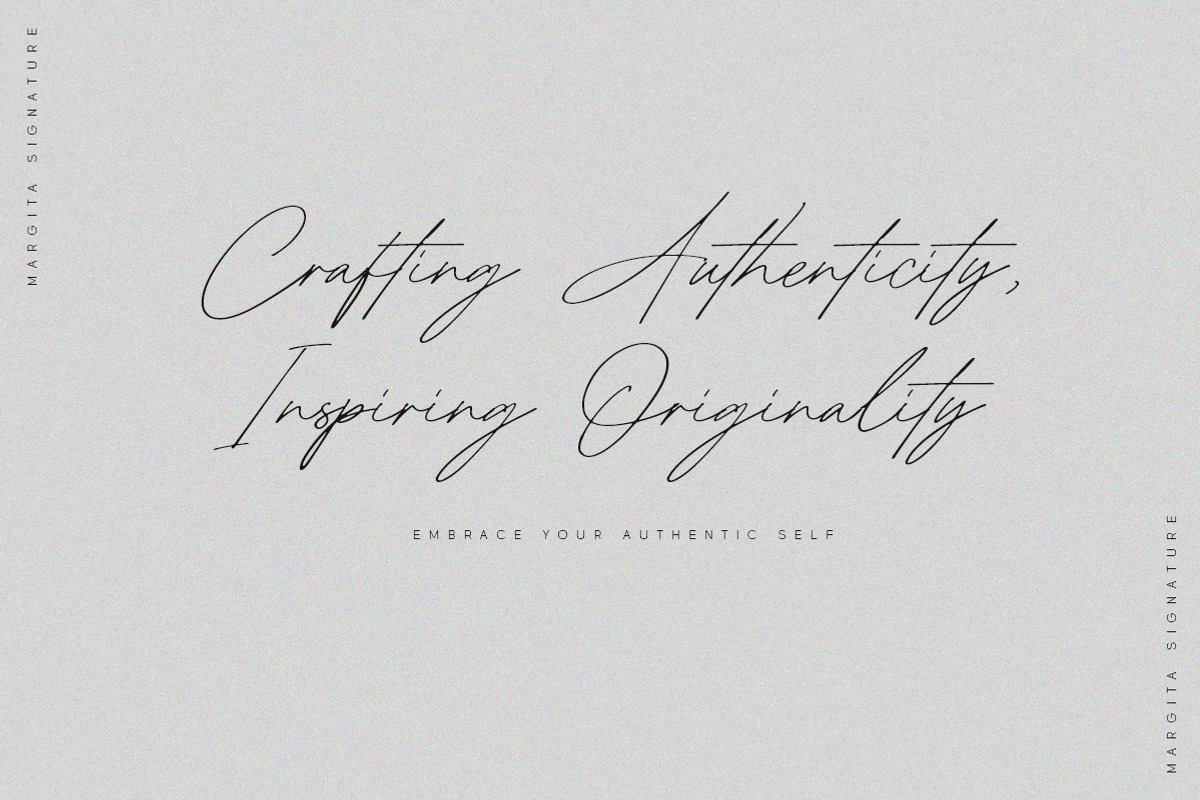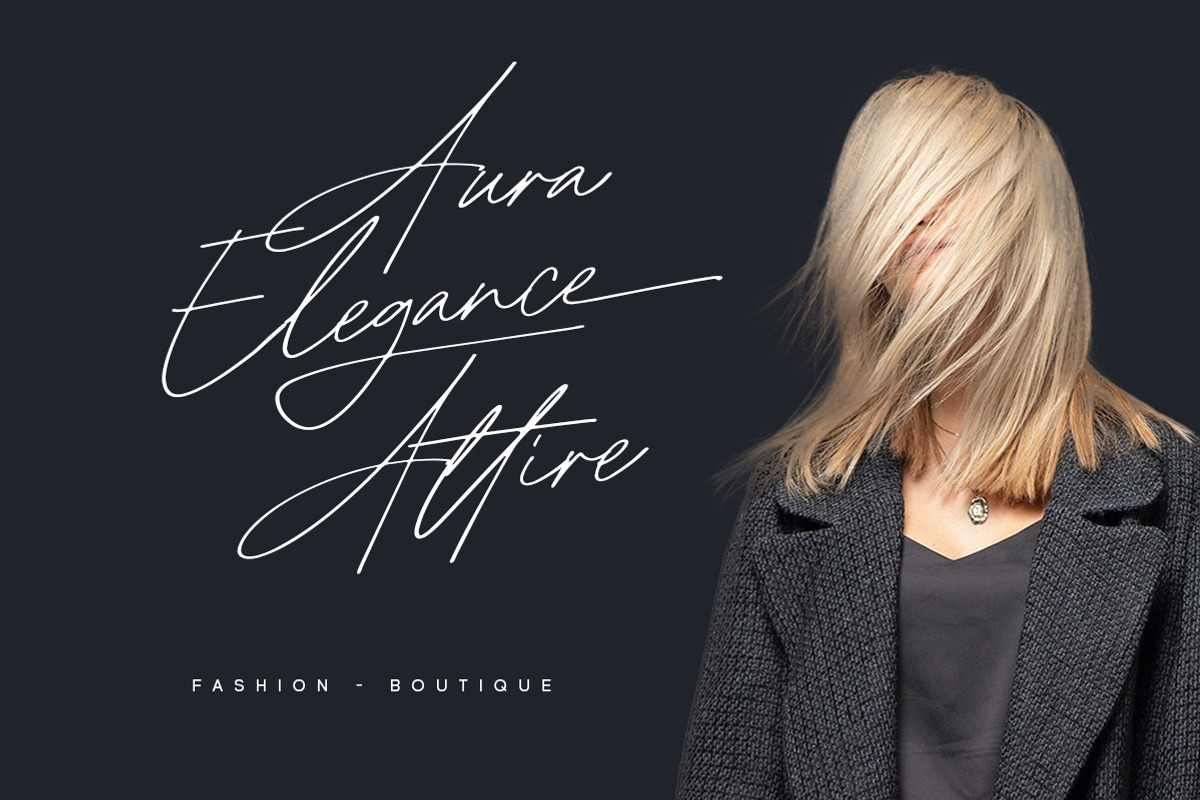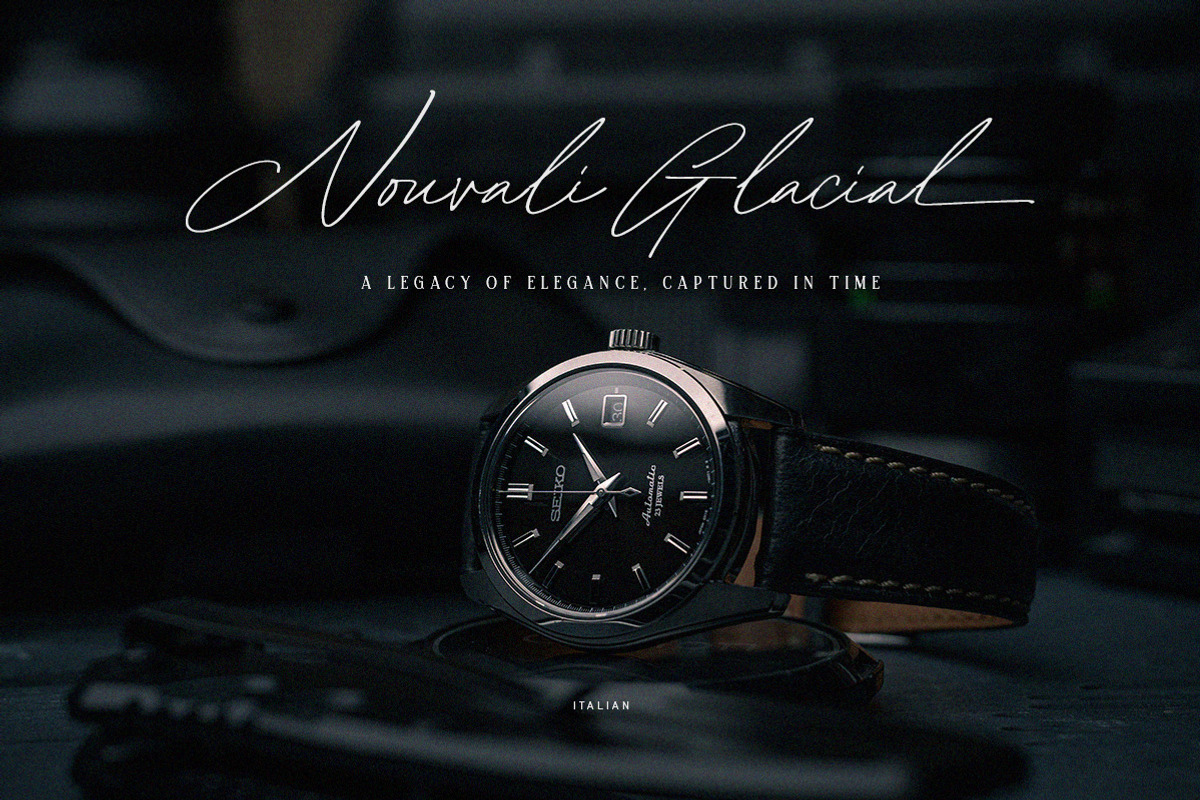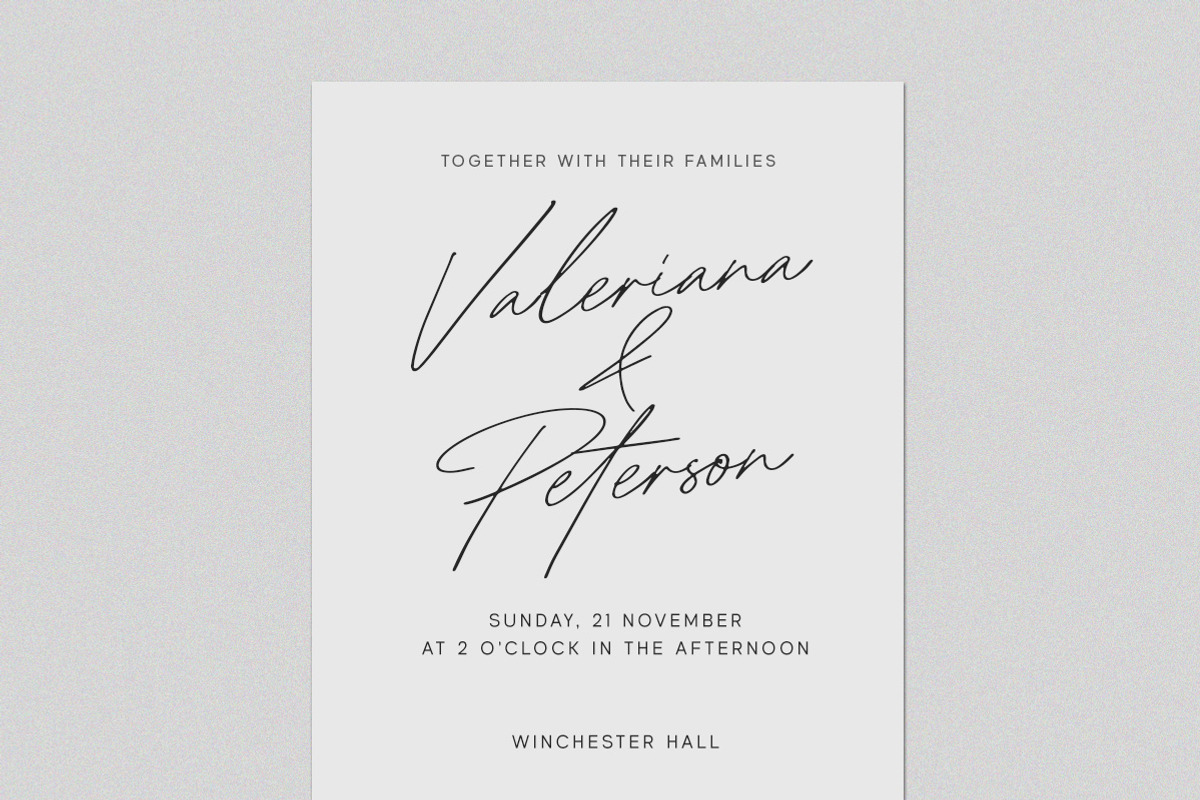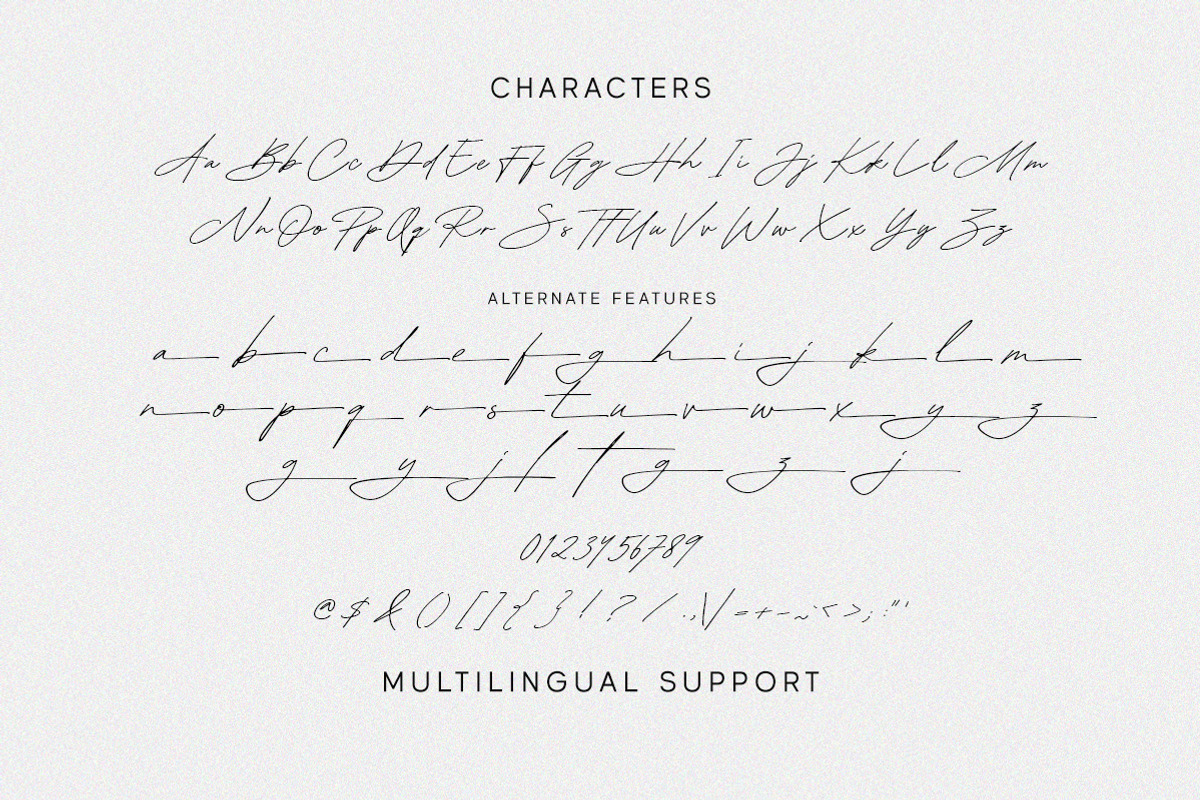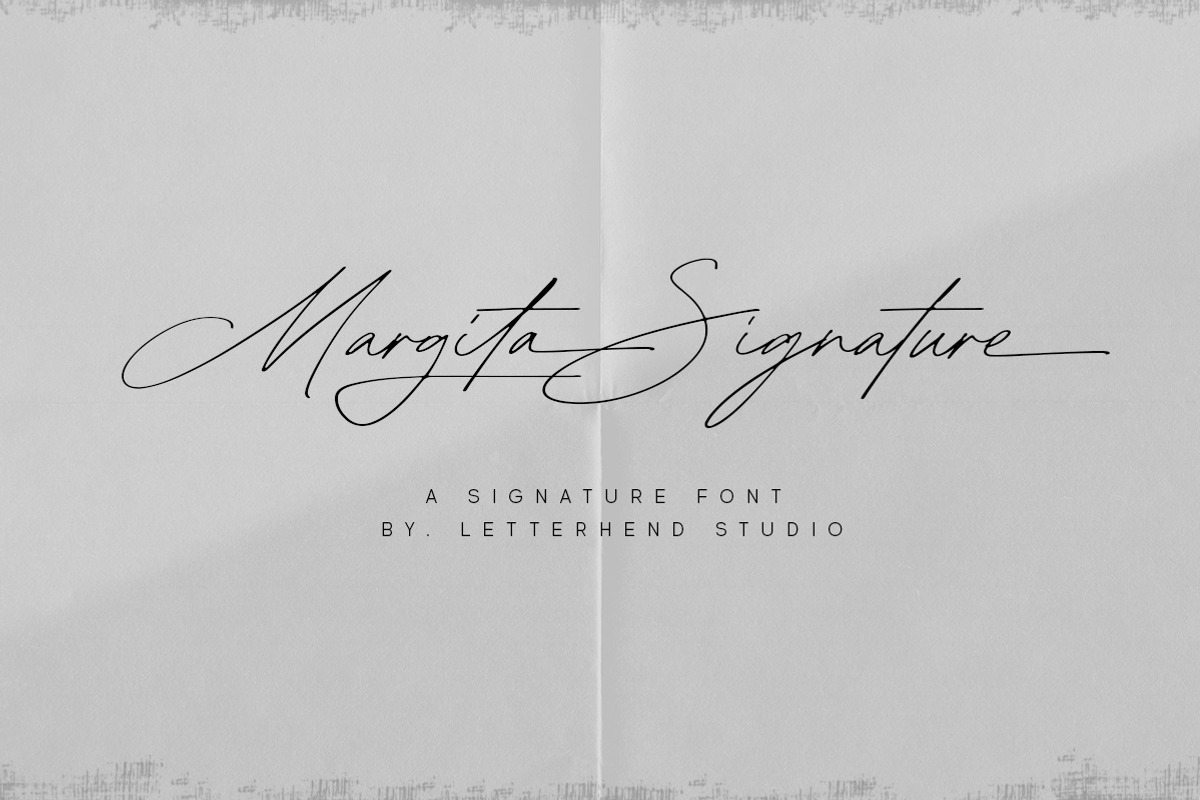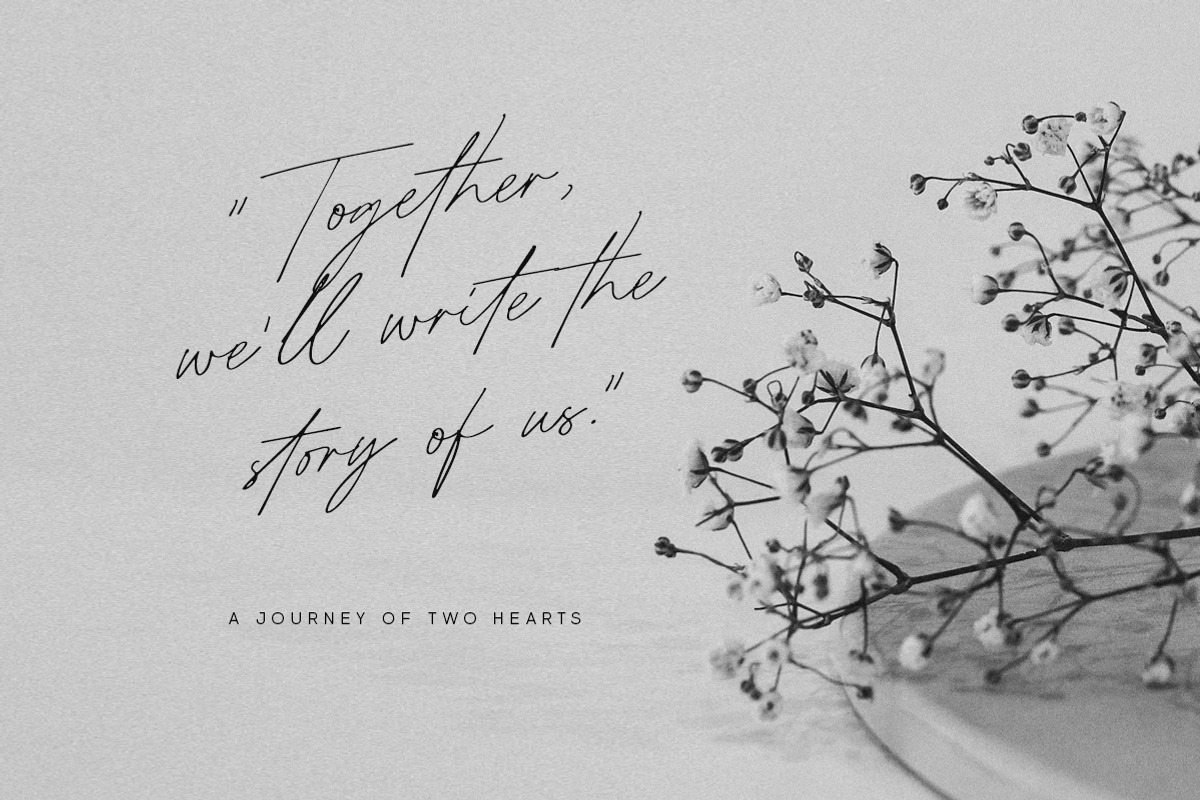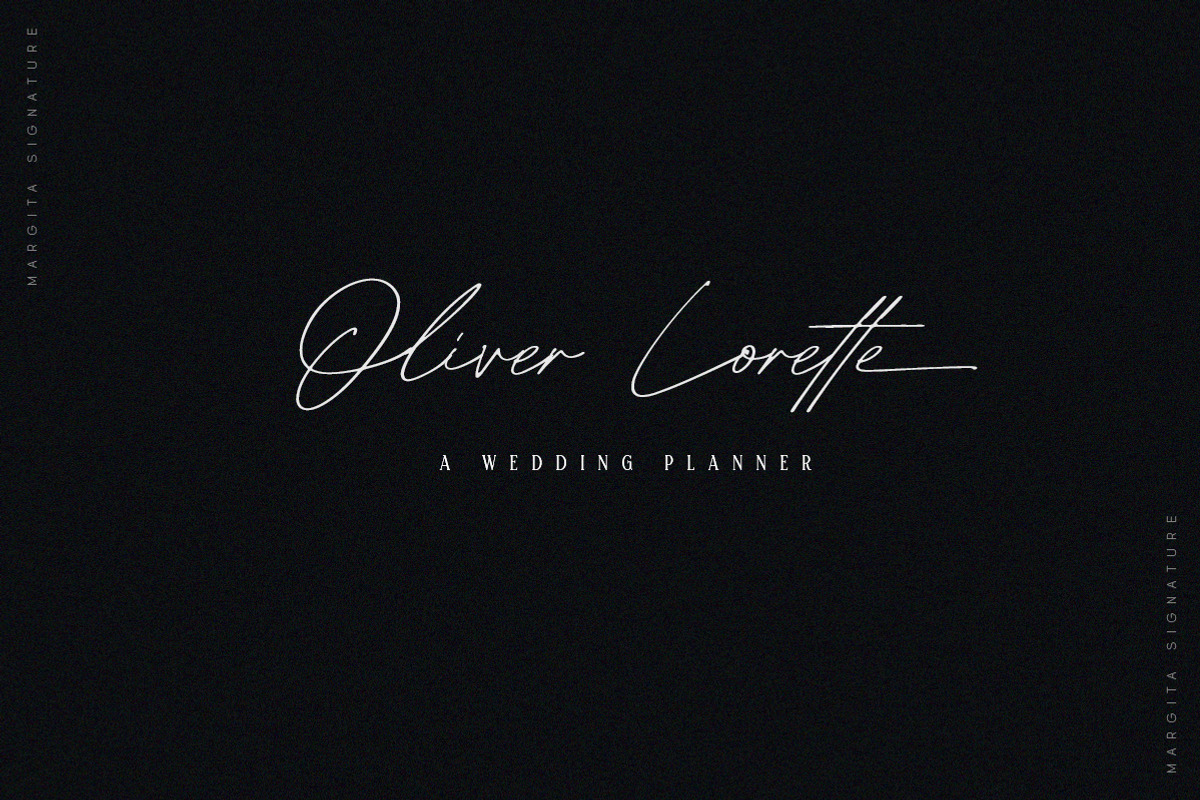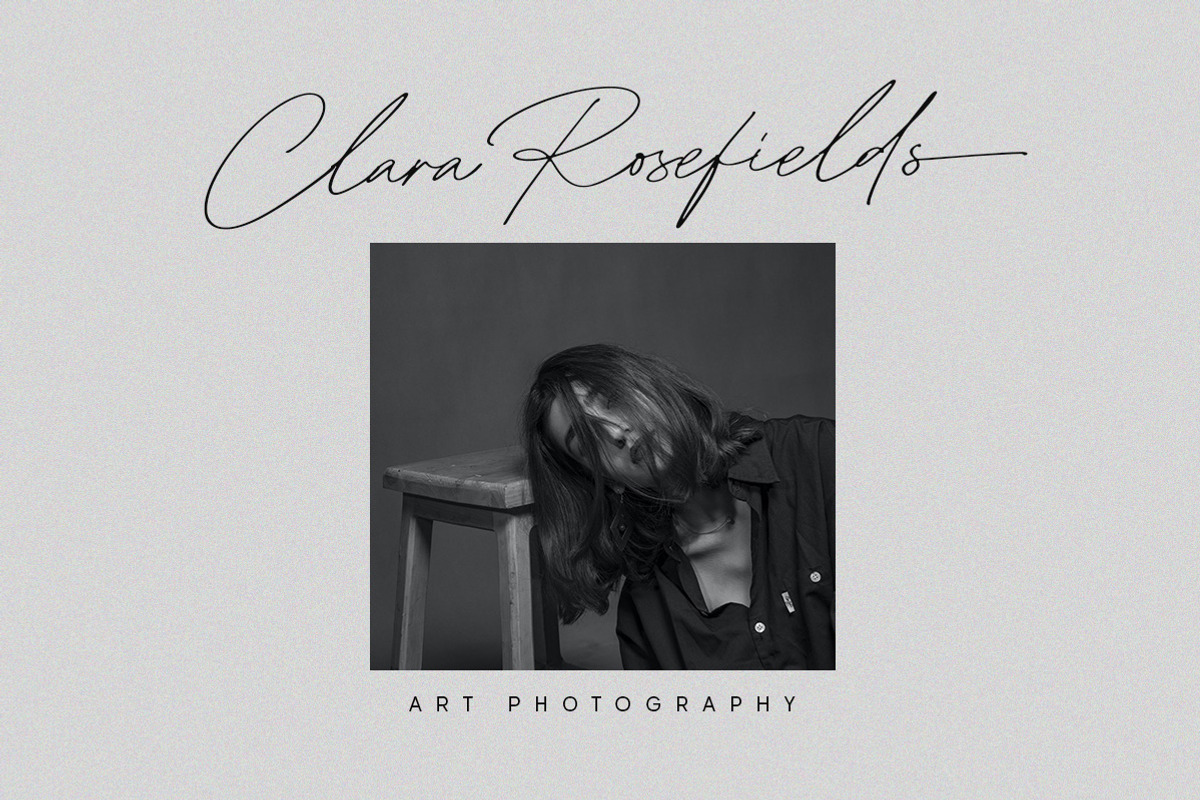
Margita Signature
Margita Signature is a beautiful signature script based on manual hand writing. The stylistic alternate, ligatures and the tick and thin stroke make this font looks a real hand writing instead of typing a font. This type of font perfectly made to be applied especially in logo, and the other various formal forms such as invitations, labels, logos, magazines, books, greeting / wedding cards, packaging, fashion, make up, stationery, novels, labels or any type of advertising purpose.